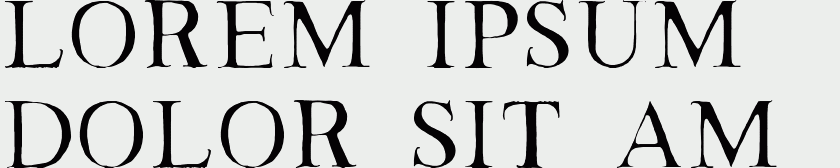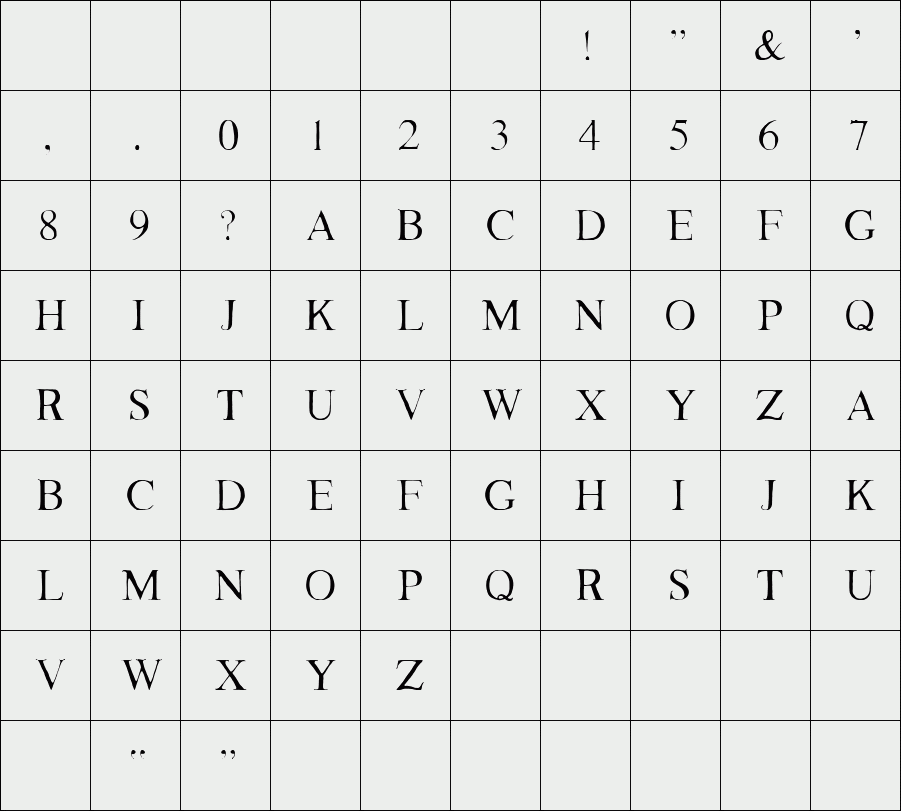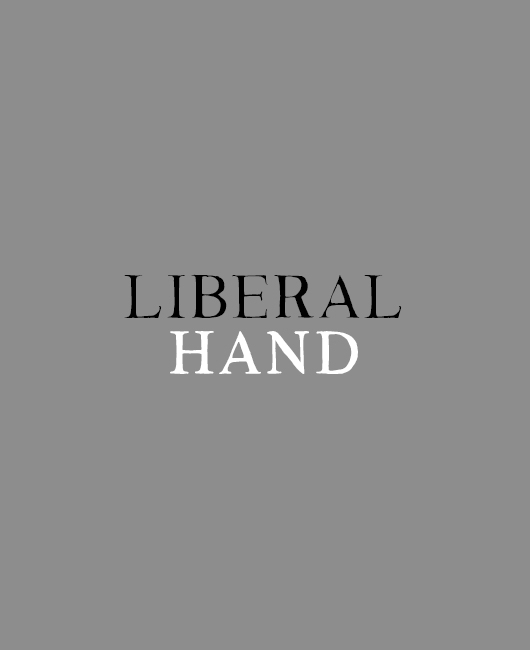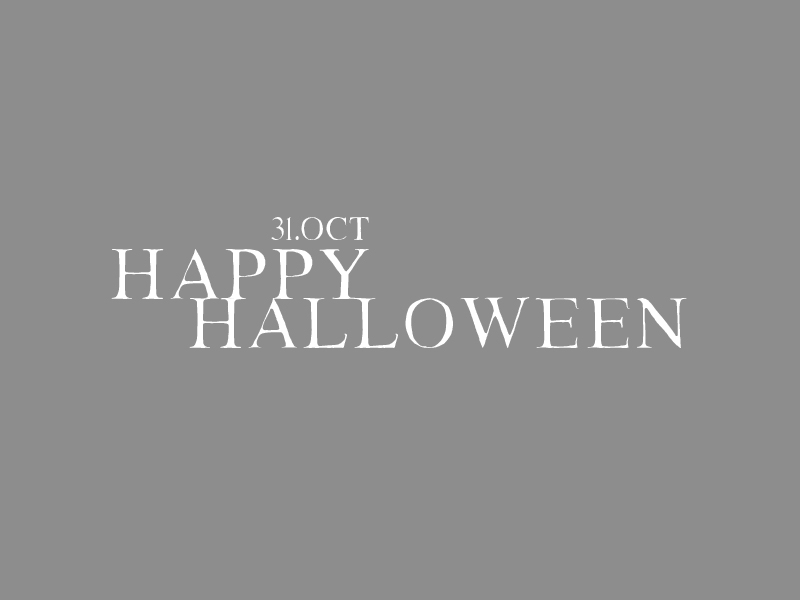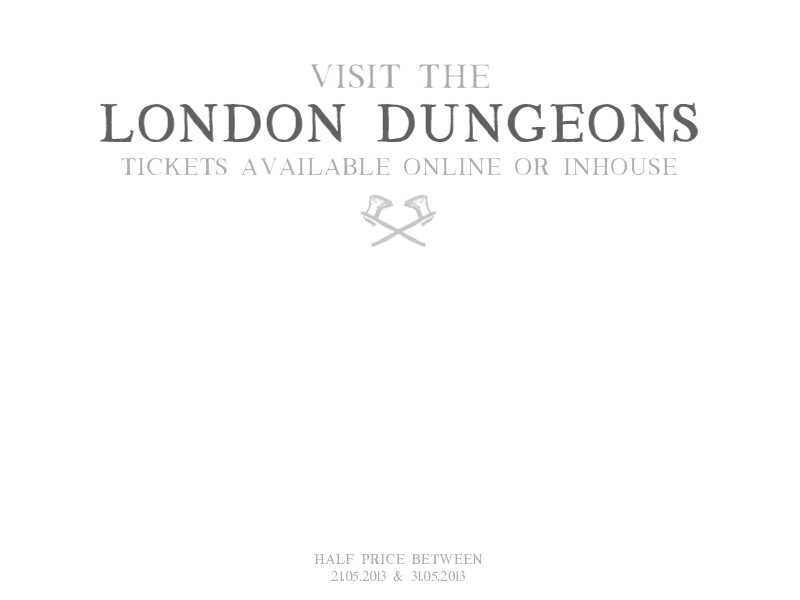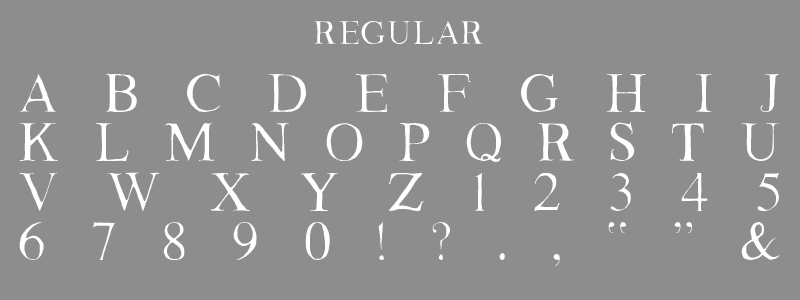
Liberal Hand
Liberal Hand, a classic serif font with a medieval undertone. This font comes complete with capitals, numbers and selected symbols. This is one of our favorites and best sellers!